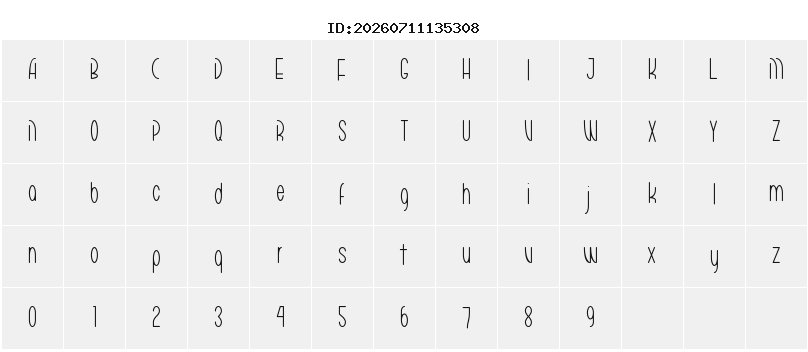
Mariko Chan Thin Preview
• Font Name: Mariko Chan Thin
• Full Font Name: Mariko Chan Thin
About Mariko Chan Thin.ttf
Mariko Chan Thin.ttf is a modern, elegant sans-serif font designed for ultimate readability and visual harmony. Perfect for branding, headlines, web design, and print materials.